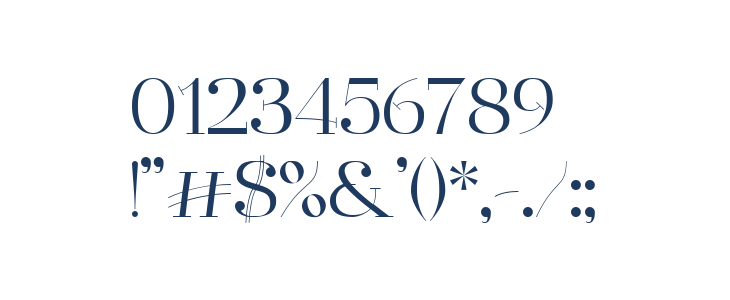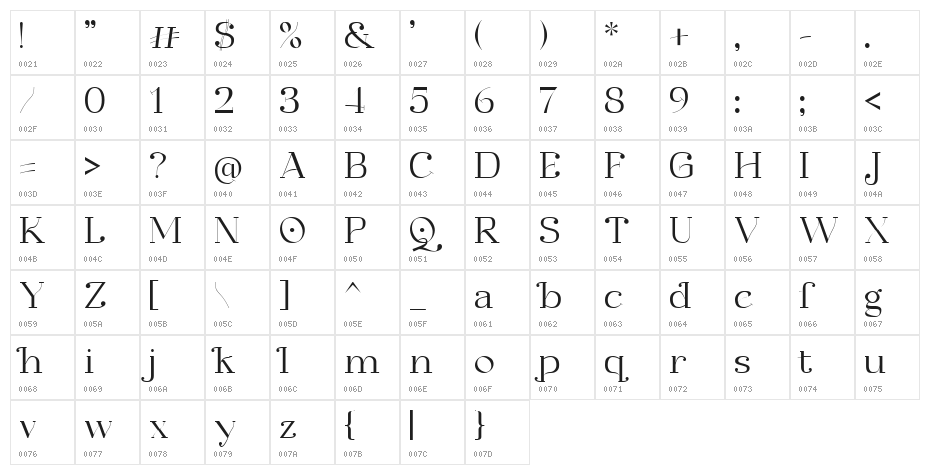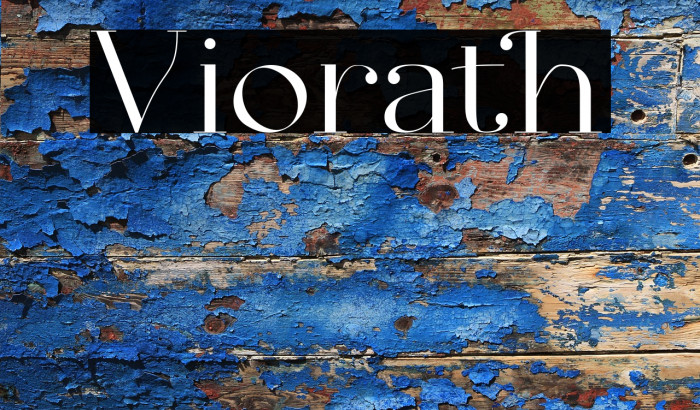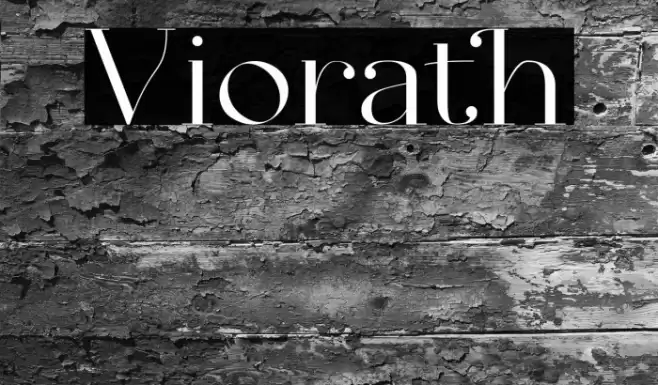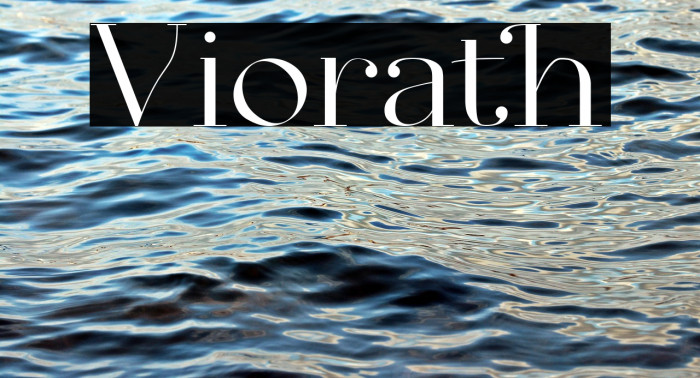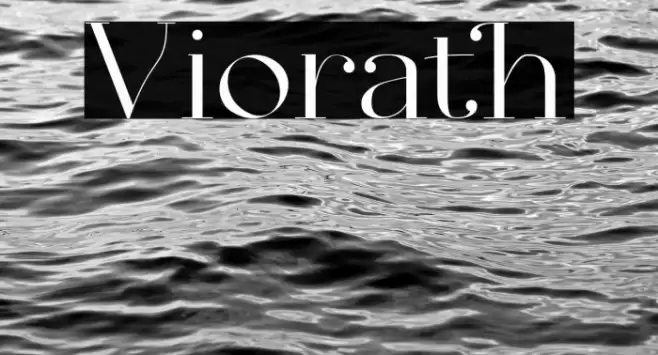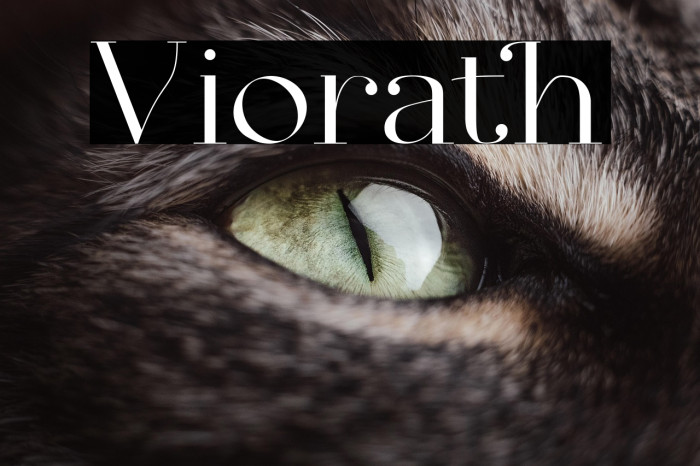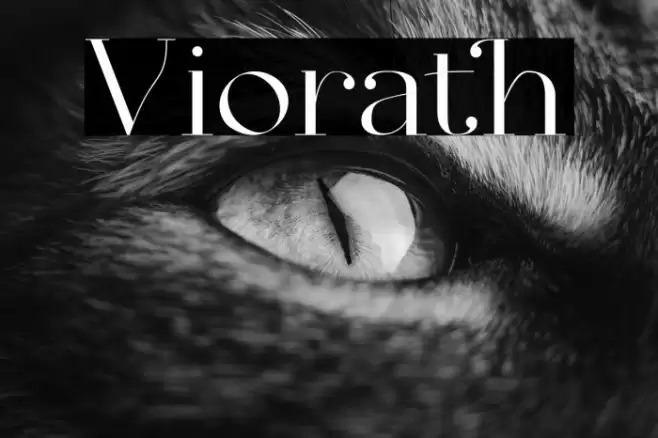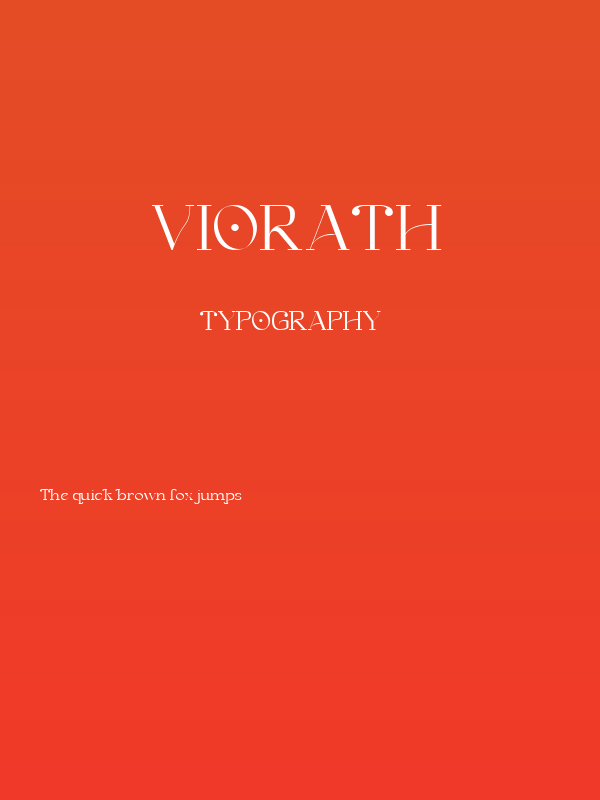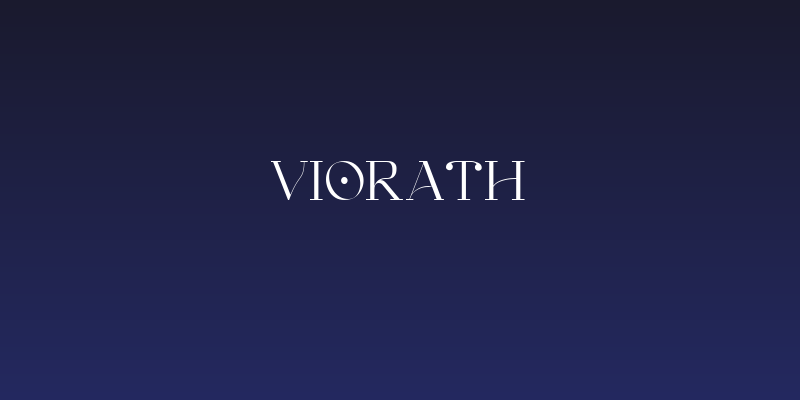
Viorath Font
Viorath Description
This font exhibits a unique blend of modern and classic styles, characterized by its high contrast between thick and thin strokes. The uppercase letters feature elegant, elongated serifs and a distinctive curvature that adds a touch of sophistication. The lowercase letters maintain a consistent style, with rounded forms and a playful yet refined appearance. The numerals are bold and prominent, ensuring readability while maintaining the font's artistic flair. Special characters are thoughtfully designed, complementing the overall aesthetic. This font's artistic elements make it suitable for creative and expressive design projects.
| Use Case | Logos, Headlines, Editorial design |
| Proposed Projects | Ideal for branding, editorial design, luxury packaging, and artistic posters. |